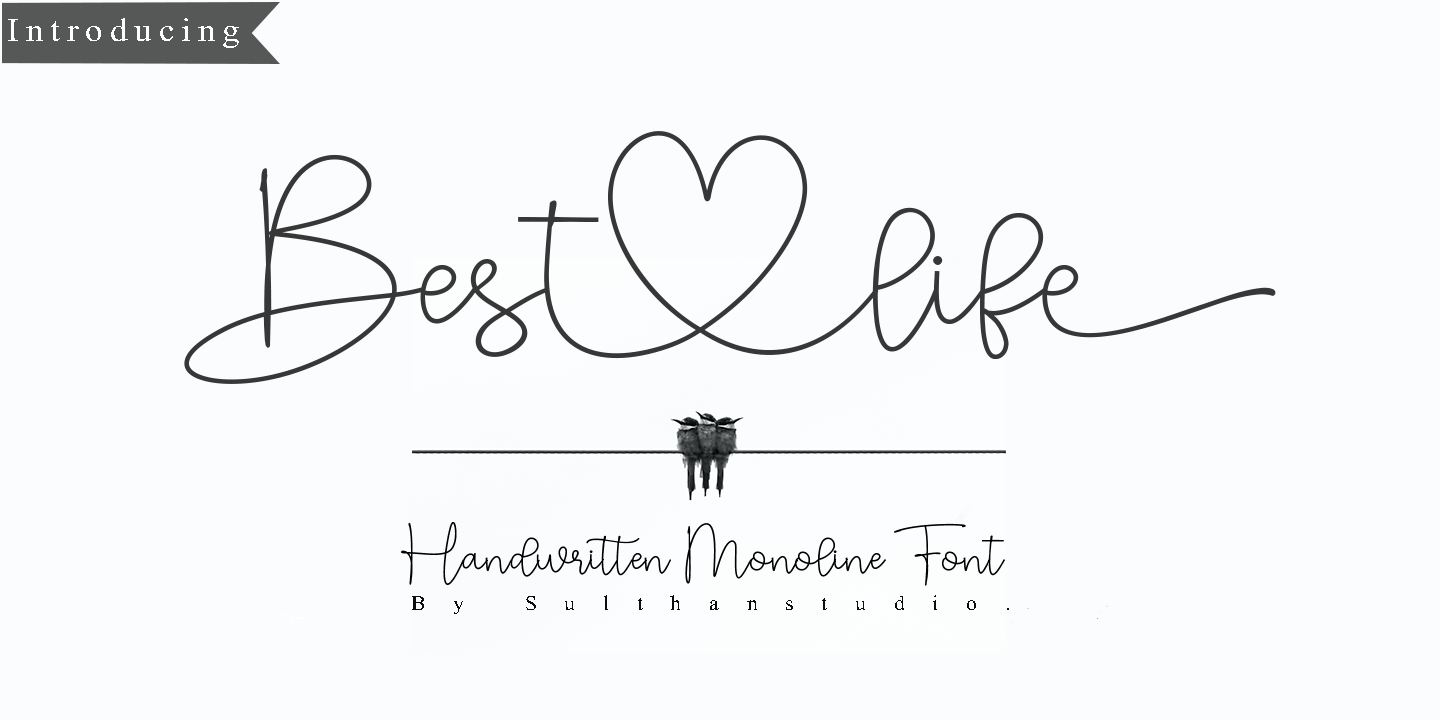
Best Life Font is perfect for life coaching brands, wellness retreat centers, personal development books, motivational seminar materials, fitness transformation campaigns, mindfulness app interfaces, inspirational blog headers, self-improvement workshops, and empowering social media content. This uplifting typeface brings personal transformation and life optimization to both digital and print design applications.
Best Life Font is exciting because it embodies the inspiring journey and unlimited potential of personal growth, making it an exceptional choice for designers who want to convey life transformation with authentic motivational appeal. Its confident letterforms and empowering character provide the perfect combination of inspirational energy and professional functionality, ensuring your projects communicate personal excellence, life optimization, and transformational success that resonates with audiences seeking genuine self-improvement and life enhancement experiences.
The Best Life Font family includes transformational weight variations and motivational elements, featuring light, regular, and bold weights with complementary empowering styles, inspirational ligatures, and success-oriented decorative flourishes. Each style maintains consistent motivational aesthetics while offering flexibility for different life enhancement applications, allowing designers to create empowering visual systems that reflect personal growth values and life optimization principles.
Whether you're designing for wellness brands, personal development companies, or transformation-focused projects, Best Life Font Free Download delivers authentic motivational appeal and life-enhancing sophistication that connects with audiences seeking genuine personal growth and life improvement experiences. This premium typeface offers designers the inspirational energy and transformational charm needed to create designs that communicate personal excellence, life optimization, and motivational success effectively. The font's empowering character makes it perfect for wellness branding, transformation campaigns, and life enhancement applications where authentic motivational credibility is essential. Download Best Life Font today and optimize your creative projects with genuine life-enhancing sophistication and transformational typography excellence that defines personal development standards.